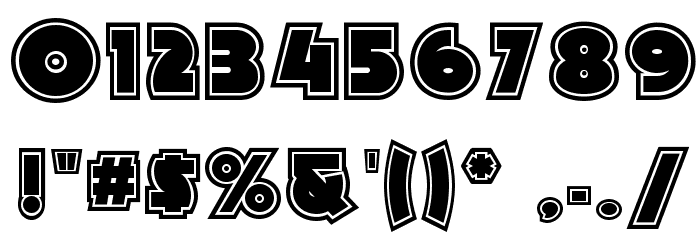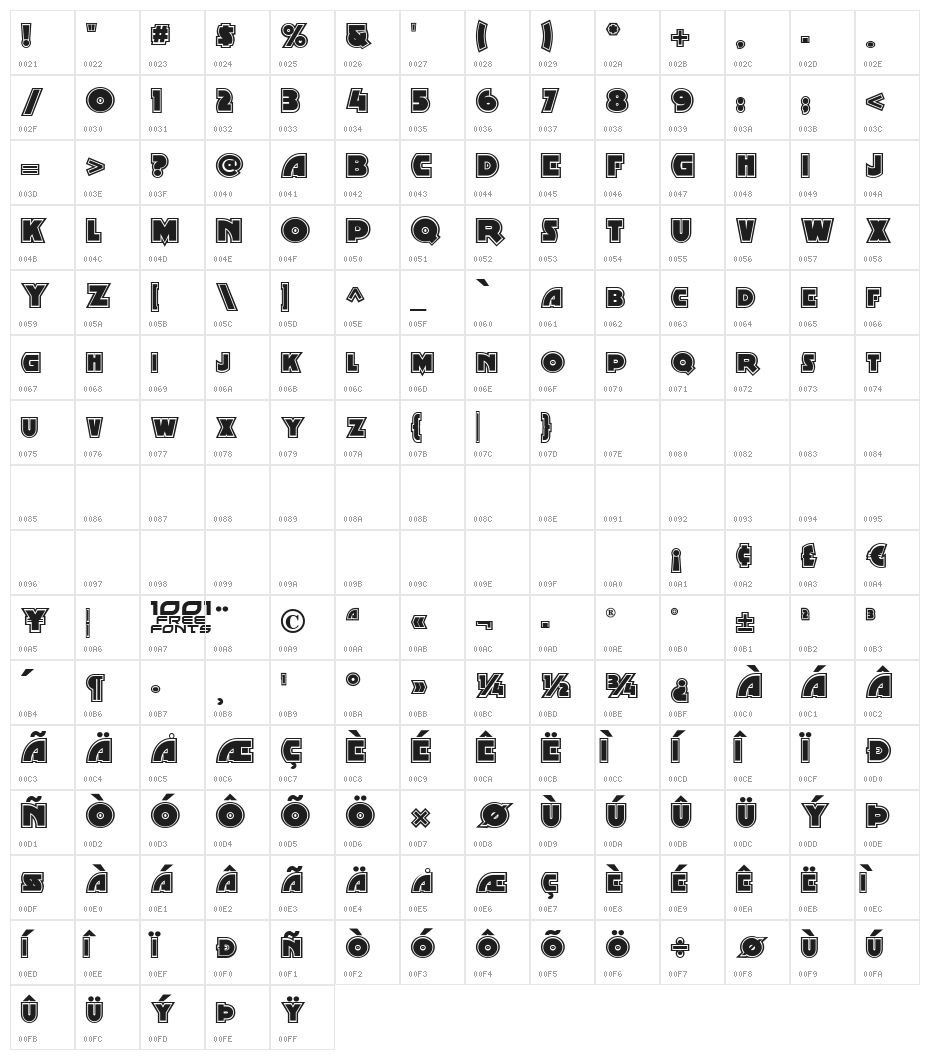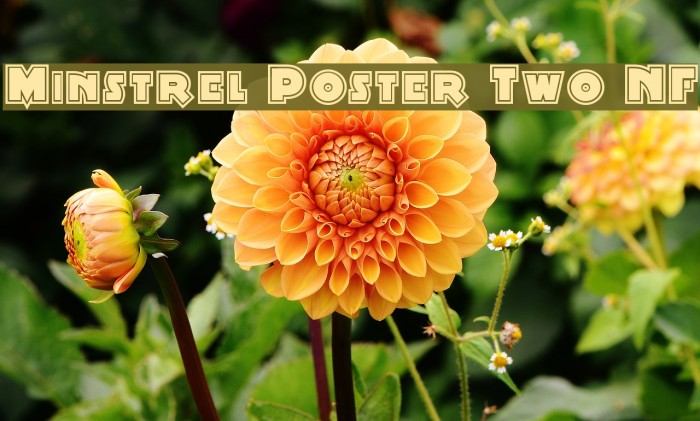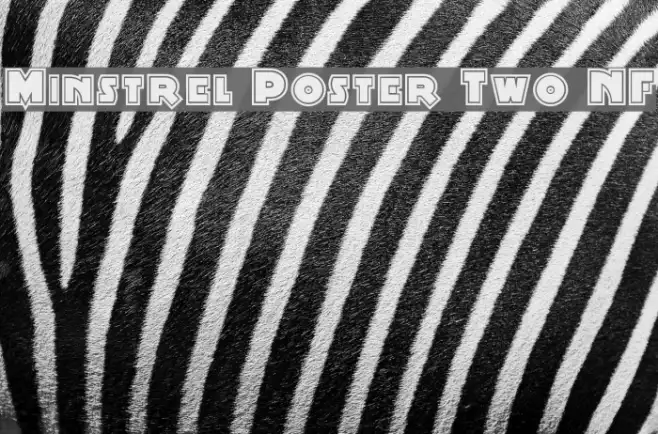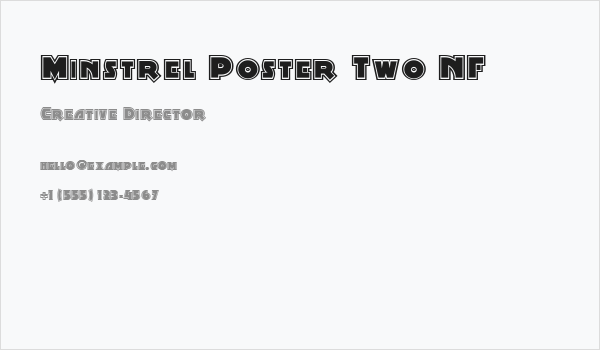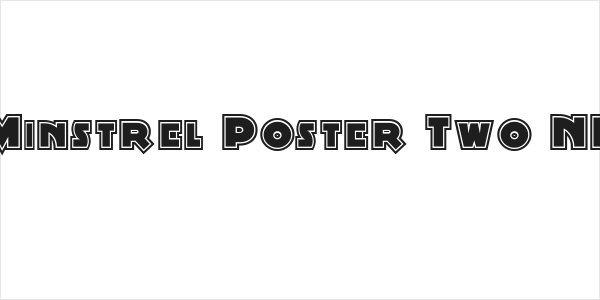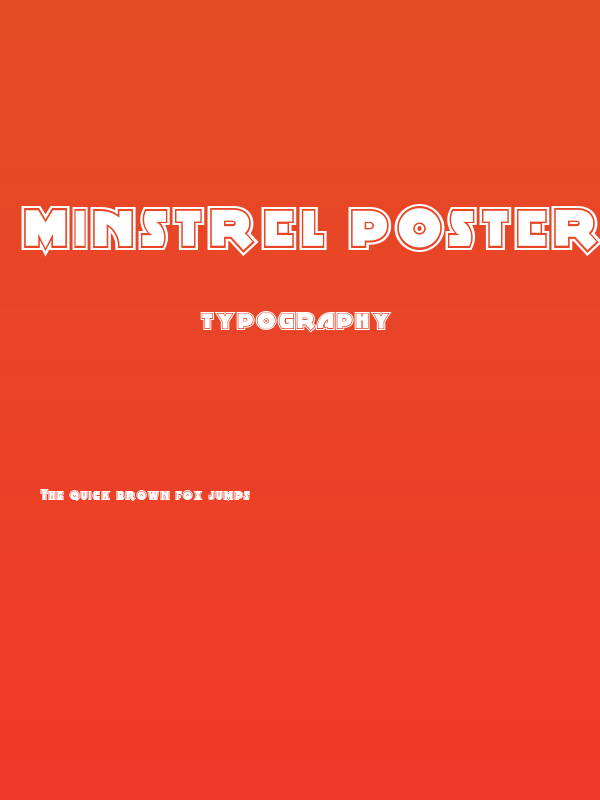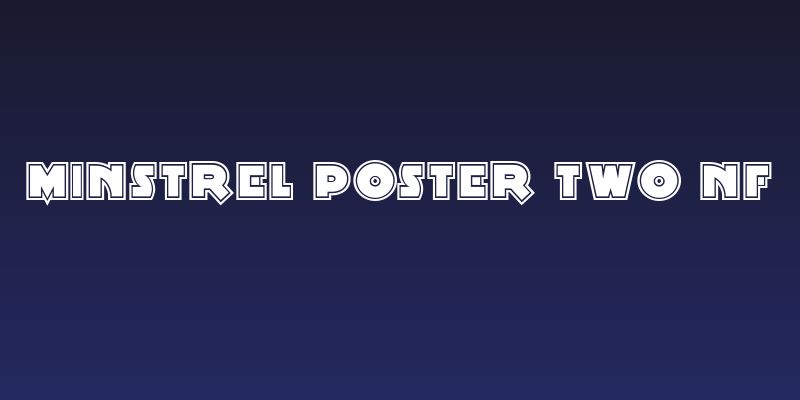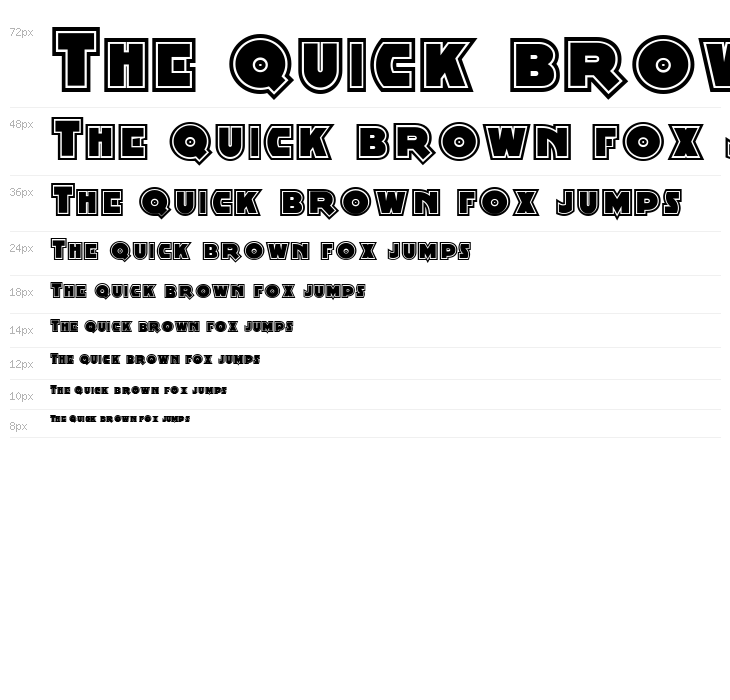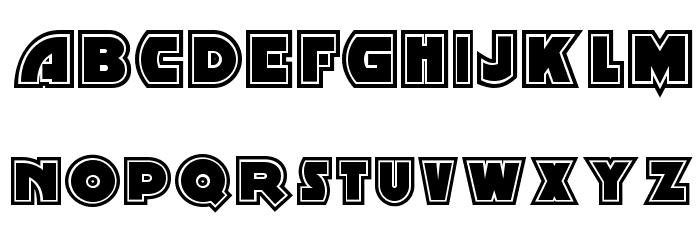
Minstrel Poster Two NF Font
Minstrel Poster Two NF Description
This font features a bold, geometric design with a strong emphasis on angular shapes and thick outlines. Each character is crafted with a distinct, blocky appearance that gives it a commanding presence. The uppercase letters are particularly striking, with sharp edges and a sense of symmetry that enhances their visual impact. The numbers and special characters maintain this bold style, ensuring consistency across all elements. The font's unique style makes it ideal for attention-grabbing headlines and titles.
| Proposed Projects | Ideal for poster designs, branding projects, and any creative work that requires a bold, impactful typeface. |